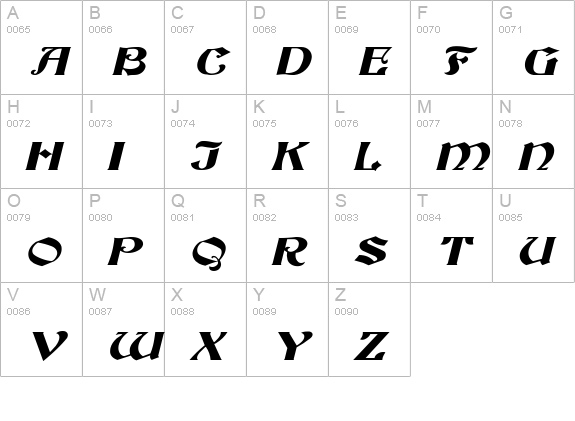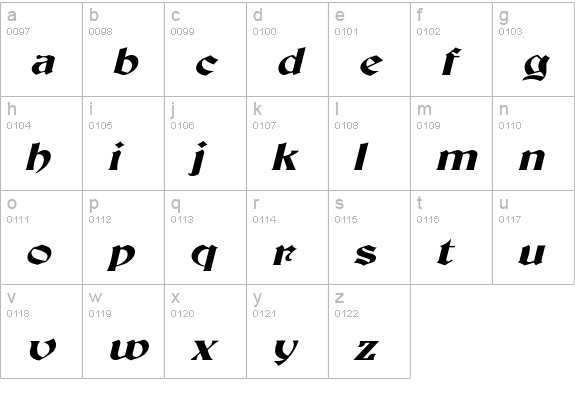
Brandywine-Extended Italic is a distinctive, extended-width, italic variant in the Brandywine typeface family \xE2\x80\x94 well suited to design and typography projects.
Brandywine-Extended Italic font is a sophisticated and elegant typeface that exudes a sense of luxury and refinement. Its sleek and flowing design adds a touch of class to any project, making it perfect for high-end branding, invitations, and editorial layouts. The italicized style of Brandywine-Extended adds a dynamic and modern flair to its classic letterforms, creating a unique and eye-catching look. What sets Brandywine-Extended Italic font apart is that it is available for free download at FontsMarket.com. This means that you can easily access this stunning font without any cost, making it a valuable asset for designers, creatives, and anyone looking to elevate their work with a touch of sophistication. Don't miss out on the opportunity to enhance your designs with the timeless beauty of Brandywine-Extended Italic font - download it for free today at FontsMarket.com!